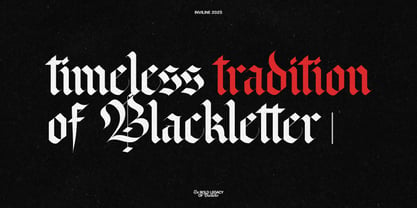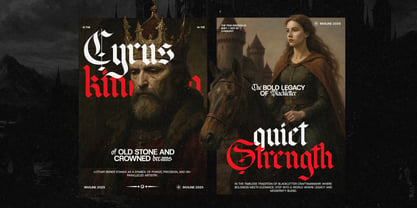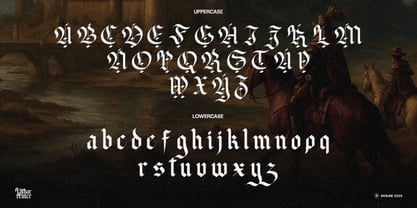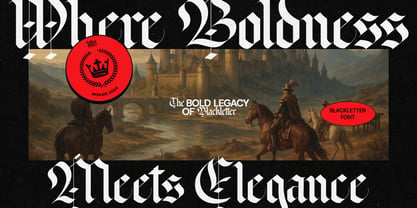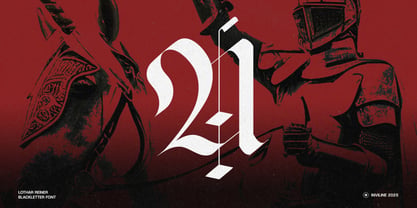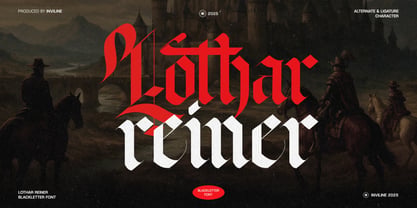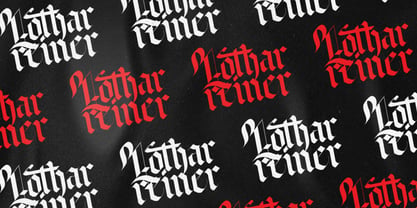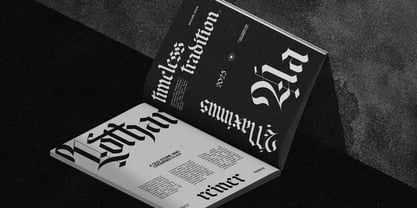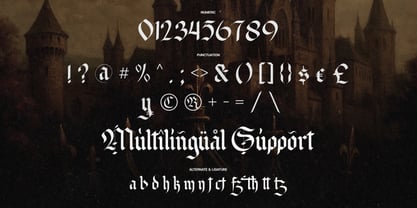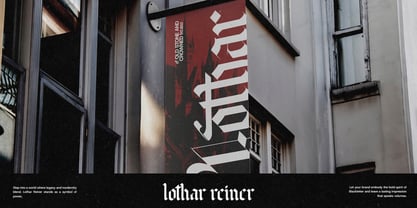
Lothar Reiner
by Inviline
The Lothar Reiner Font Family was designed by Virgiawan Listanto and published by Inviline. Lothar Reiner contains 1 styles. More about this family
Lothar Reiner is a bold and commanding blackletter typeface inspired by medieval manuscripts and crowned empires. It is meticulously crafted to deliver strength, heritage, and a dramatic presence in every letterform. What You Get: a complete set of uppercase and lowercase characters, numerals, punctuation, multilingual support, stylistic alternates, and distinctive ligatures designed for expressive typography. This typeface is perfect for a variety of applications including branding, album covers, editorial layouts, posters, merchandise, gaming titles, historical themes, cinematic visuals, luxury labels, and any project that requires a timeless gothic attitude combined with a modern, powerful edge.
Designers: Virgiawan Listanto
Foundry: Inviline